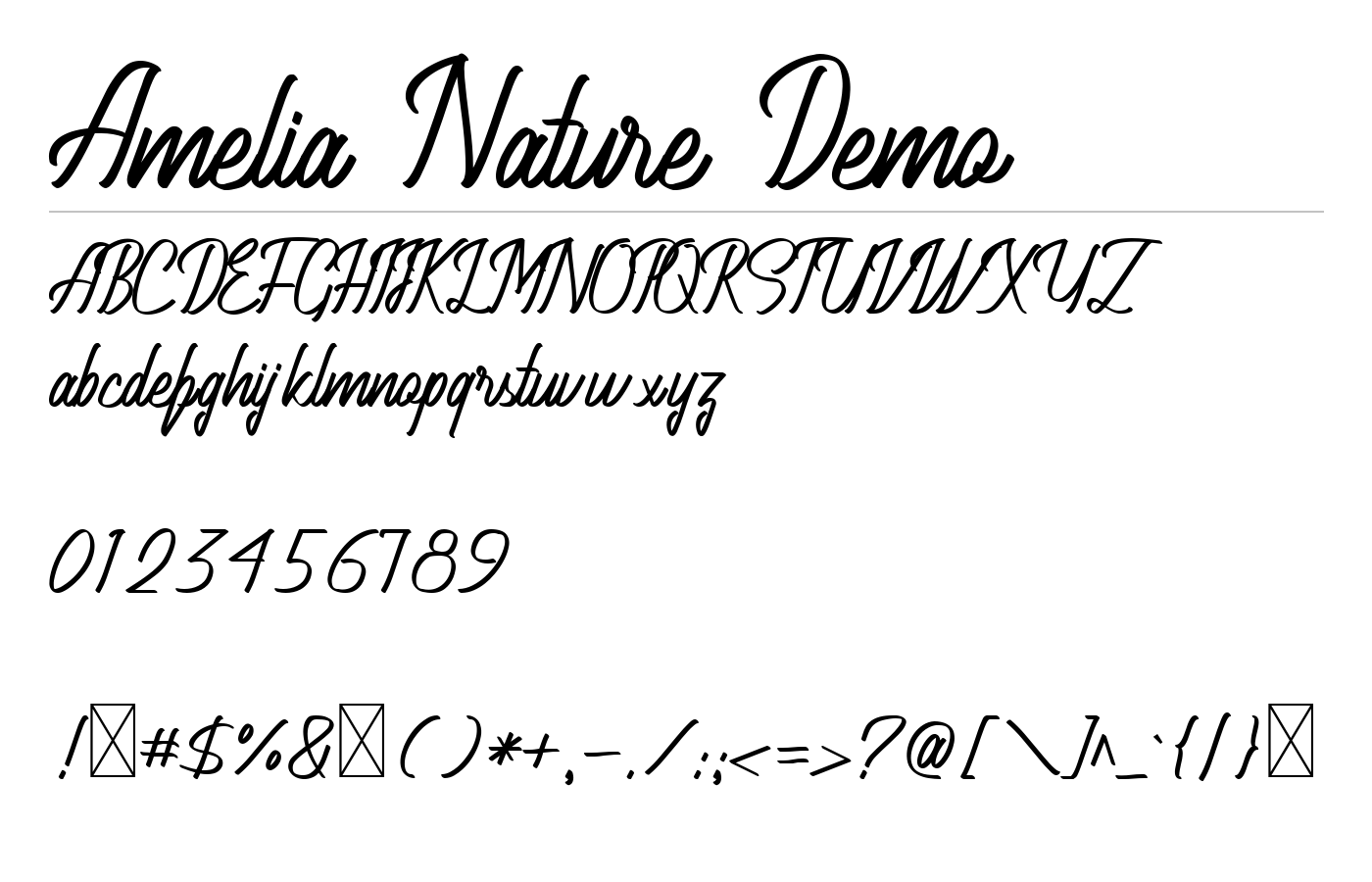
Amelia Nature Demo is a delicate script font with a handwritten touch, featuring slender, flowing letterforms that convey elegance and warmth. Its light weight and smooth, slightly slanted strokes make it ideal for creating soft, inviting designs suited to branding, invitations, and feminine editorial projects. This font shines in contexts where a personal, graceful style is desired, adding a sophisticated yet approachable character to any text.
Amelia Nature Demo Font
About Amelia Nature Demo Font
| Font family | Amelia Nature Demo Font |
| Designer | Fypecompany |